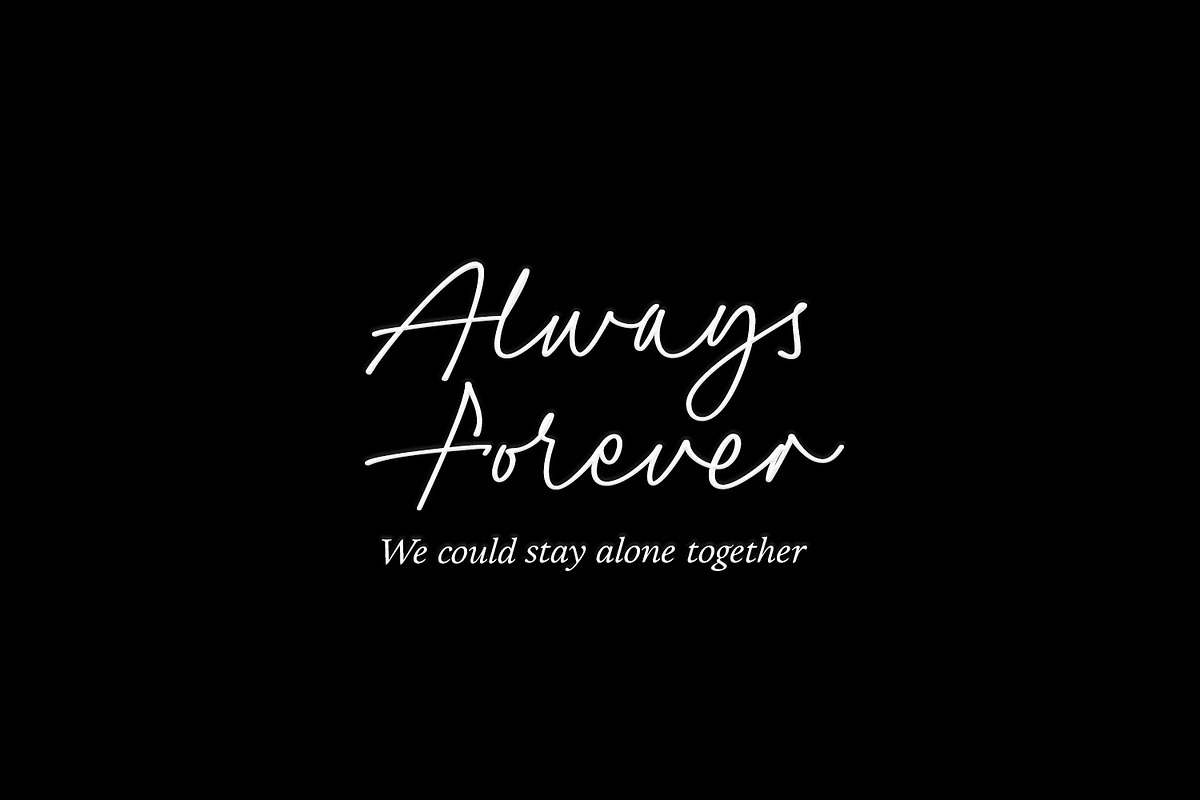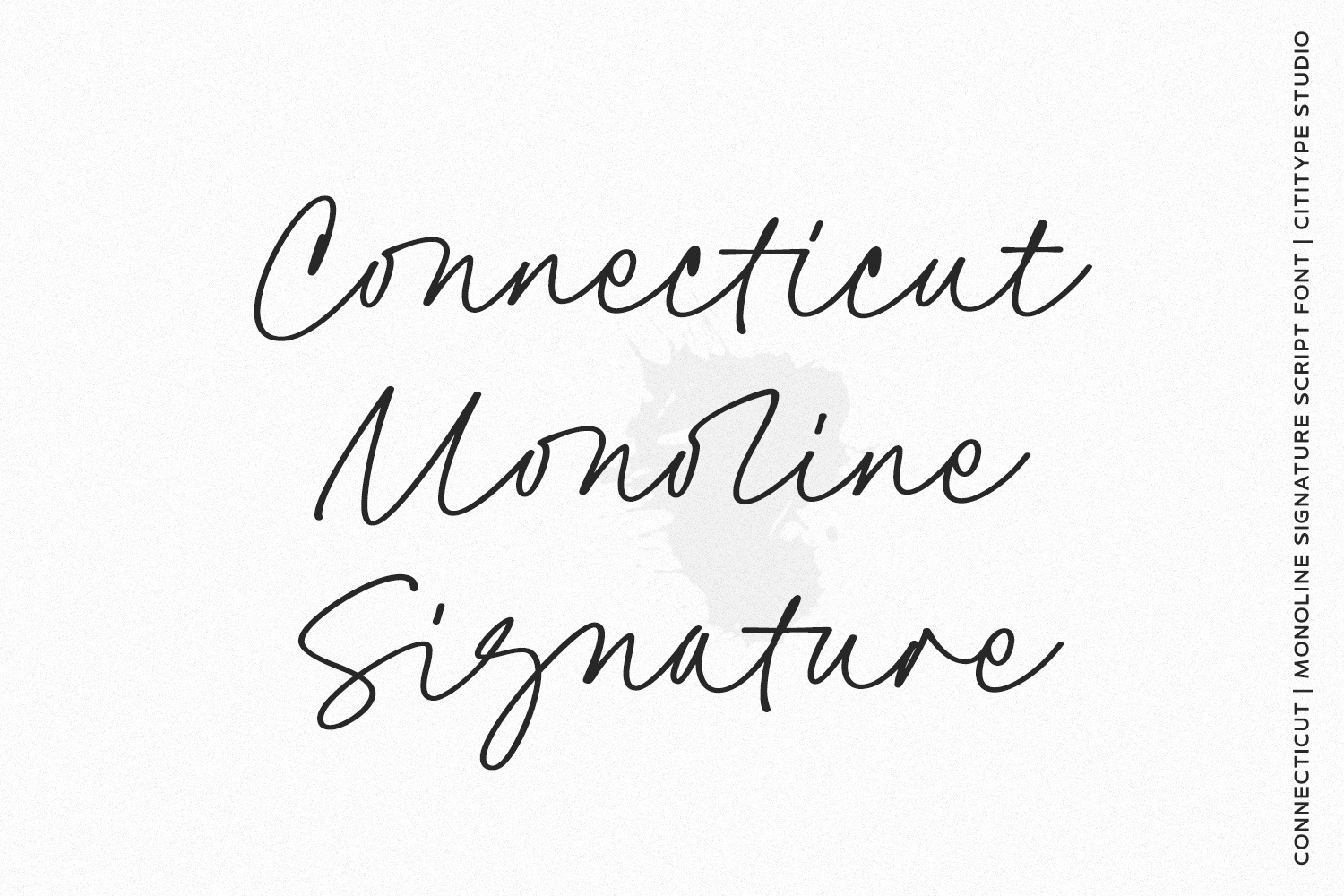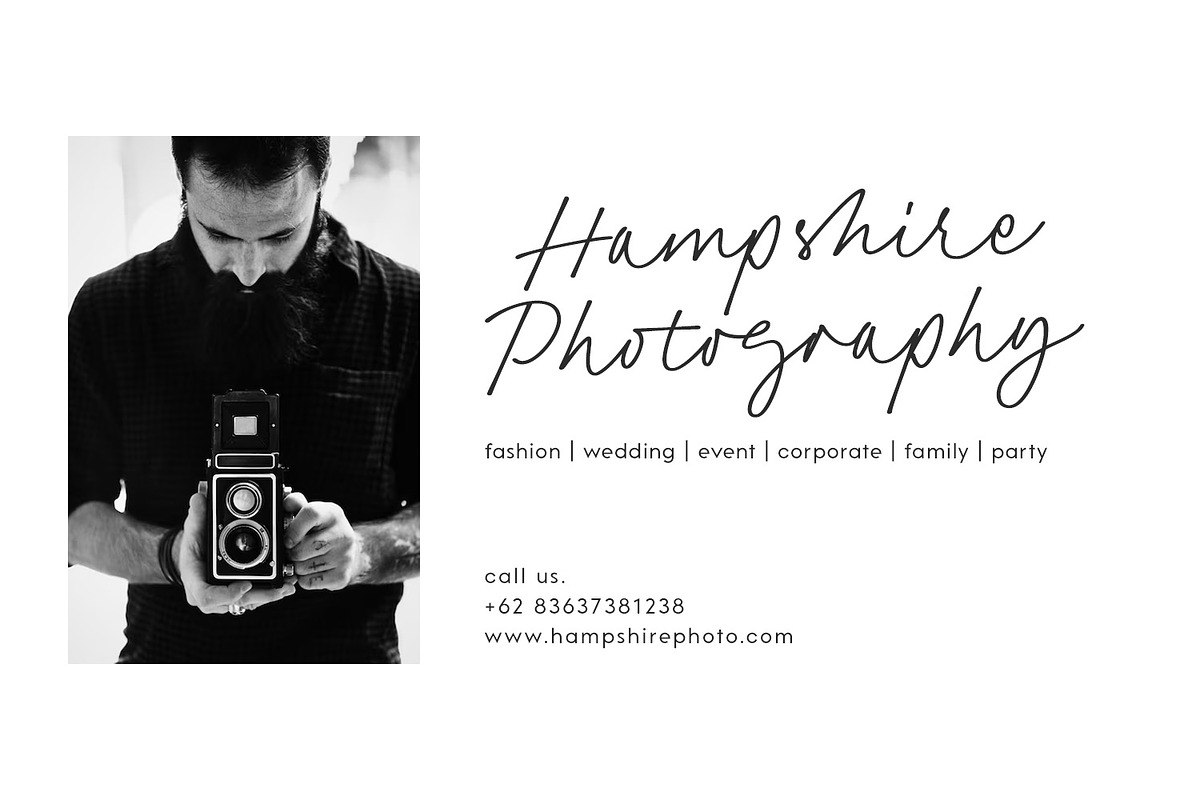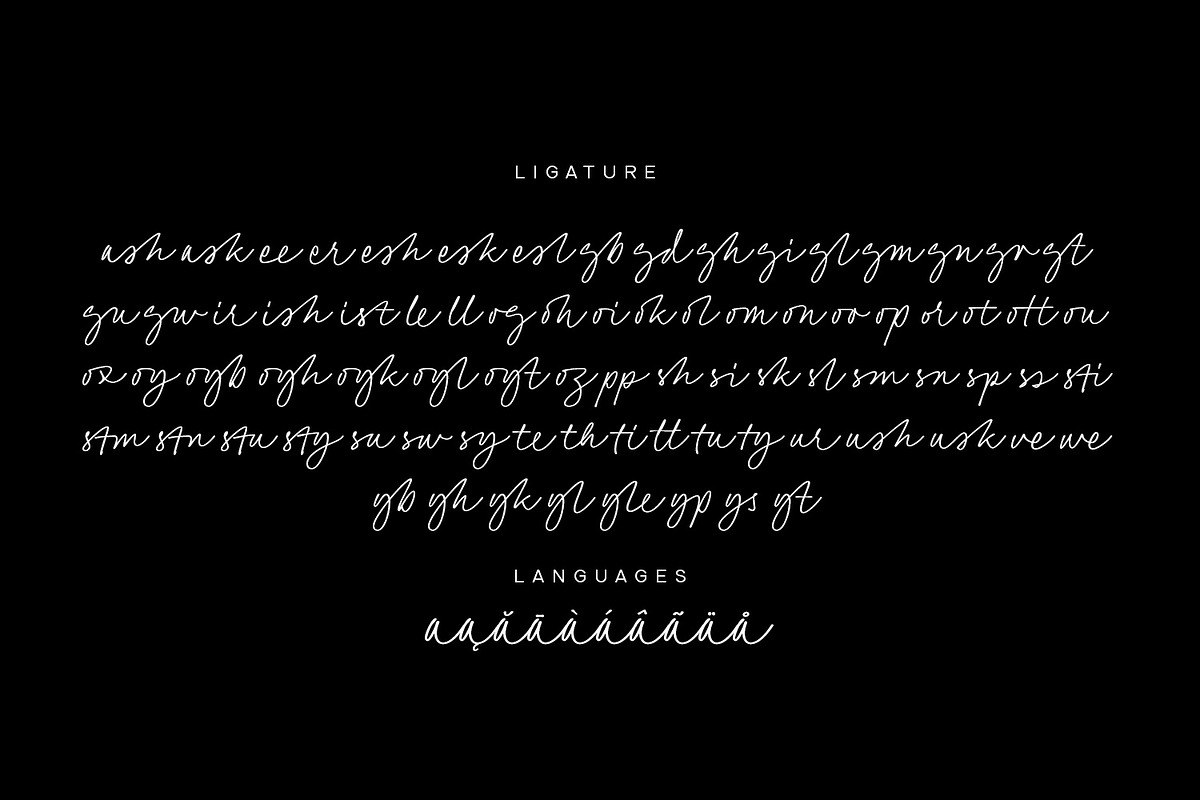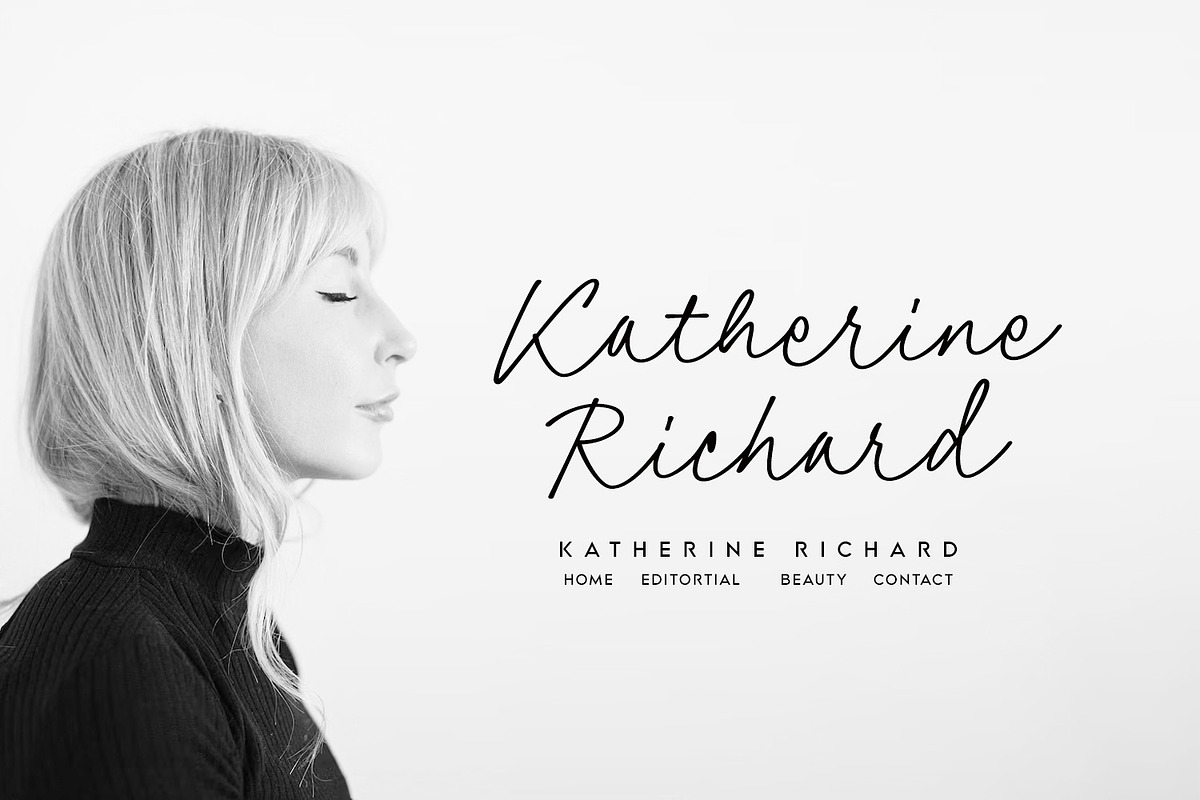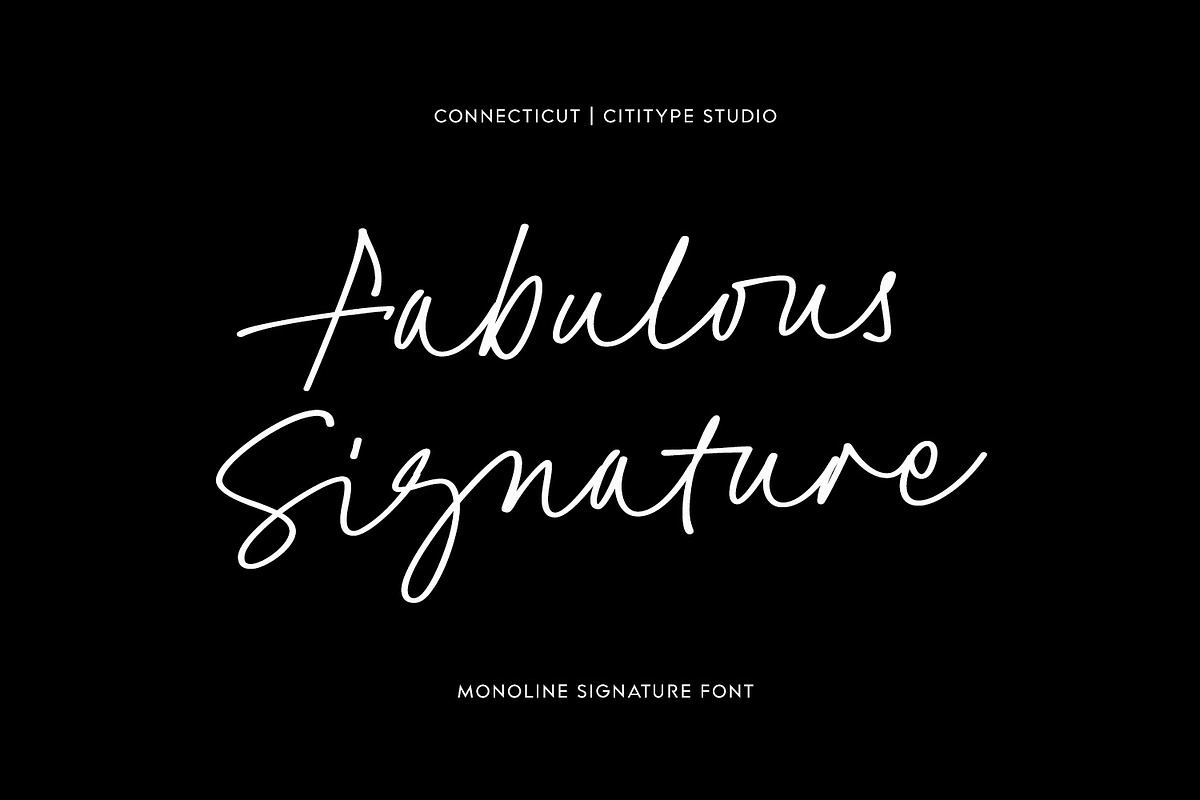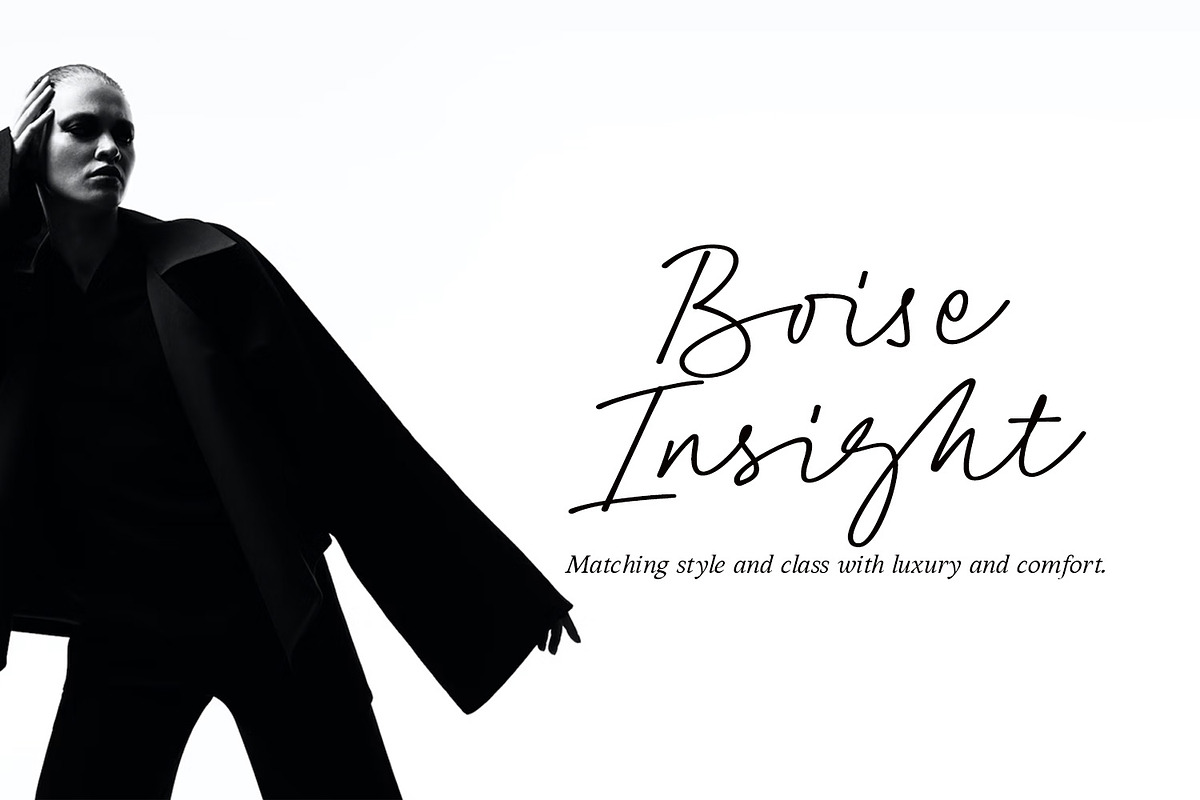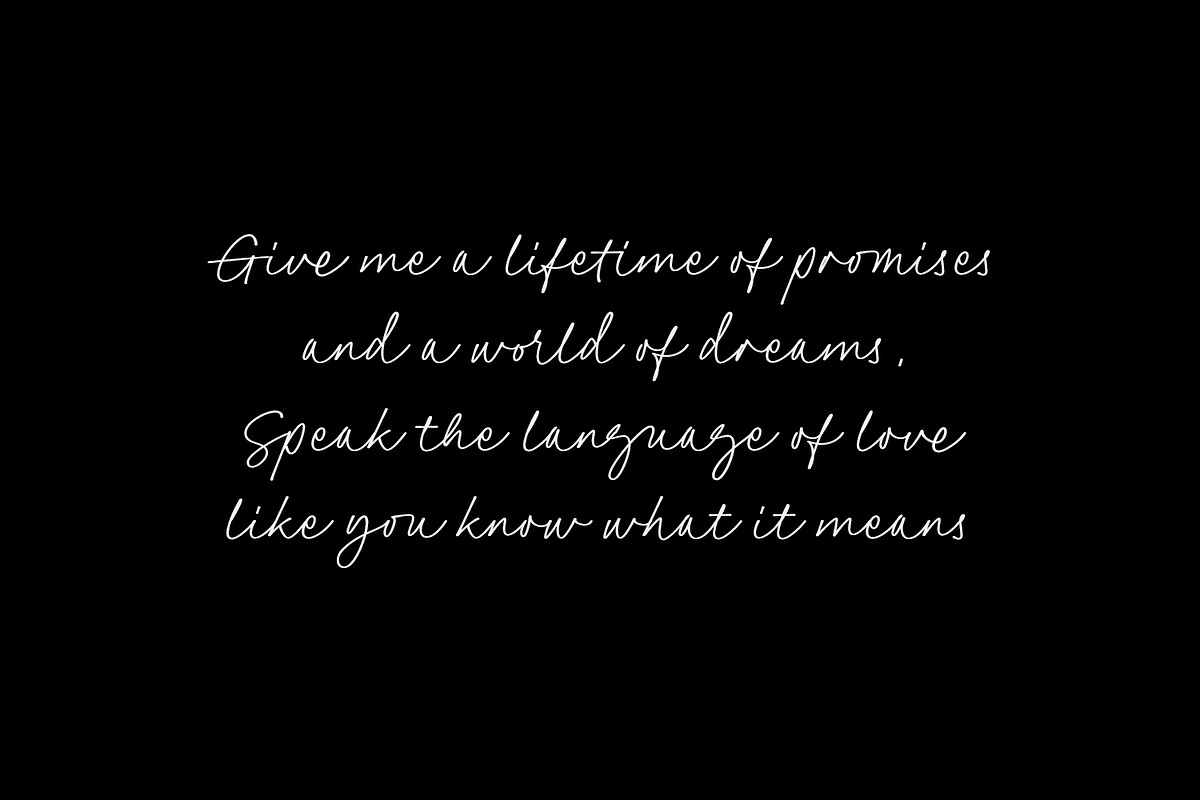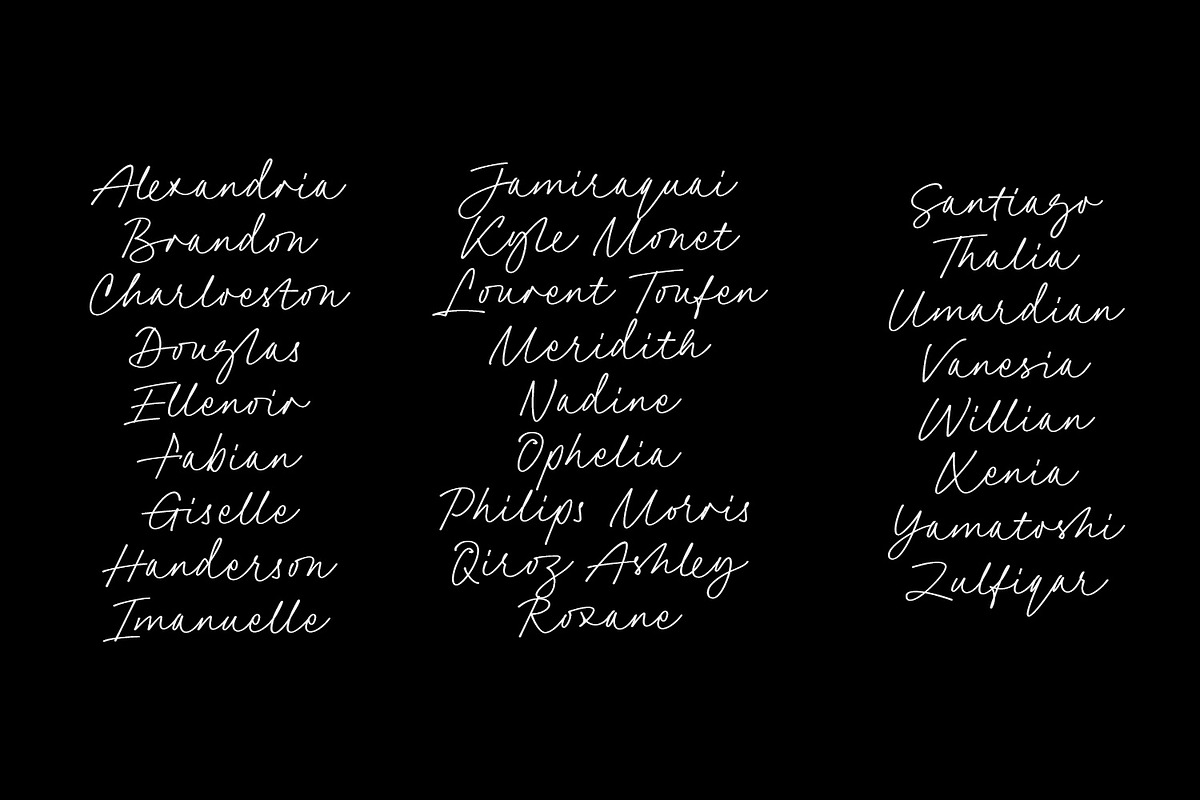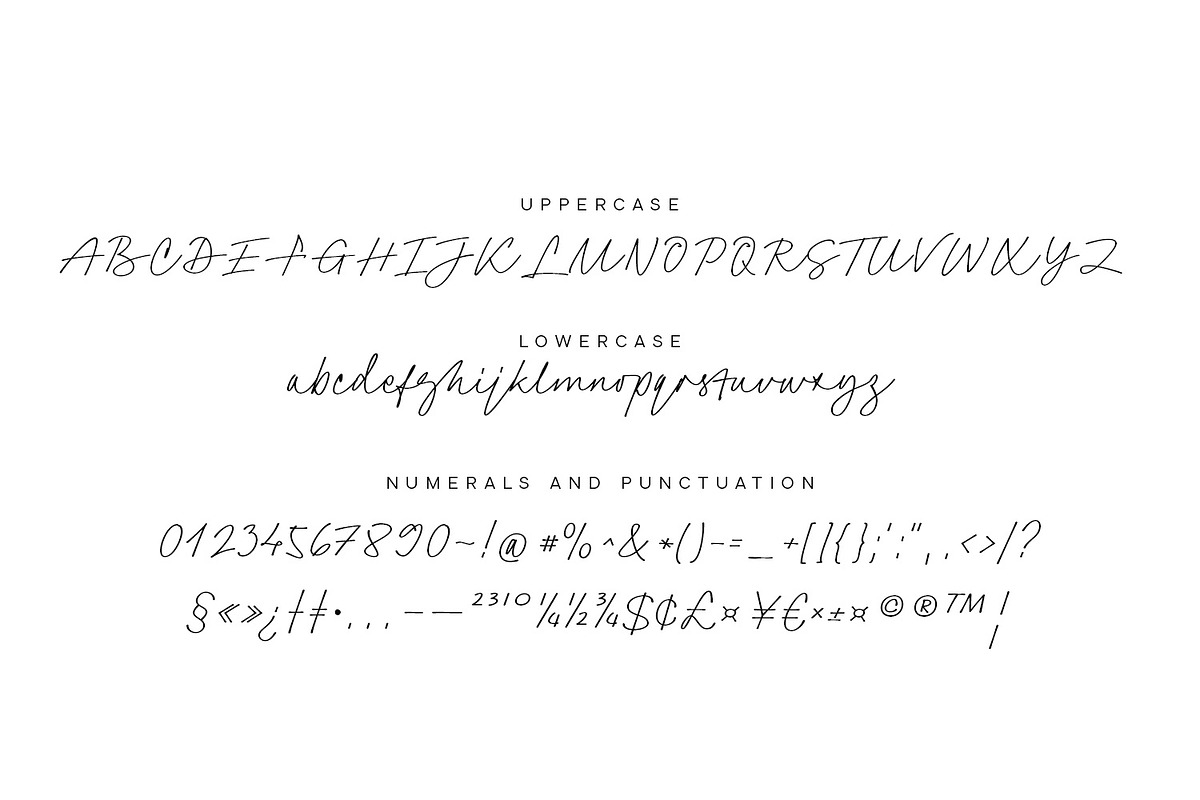
Connecticut - Monoline Script Font
The 'Connecticuts' font is a versatile handwritten typeface that is perfect for various applications, including logos, signatures, photography watermarks, quotes, book titles, and more. Its unique charm lies in the combination of monoline characters with a firm and fabulous handwriting style. The font exudes a sense of elegance and professionalism while maintaining a human touch, making it an excellent choice for both formal and creative projects. Whether you need to add a personal flair to your branding or elevate the visual appeal of your designs, 'Connecticuts' delivers a sophisticated and engaging look that is sure to leave a lasting impression.